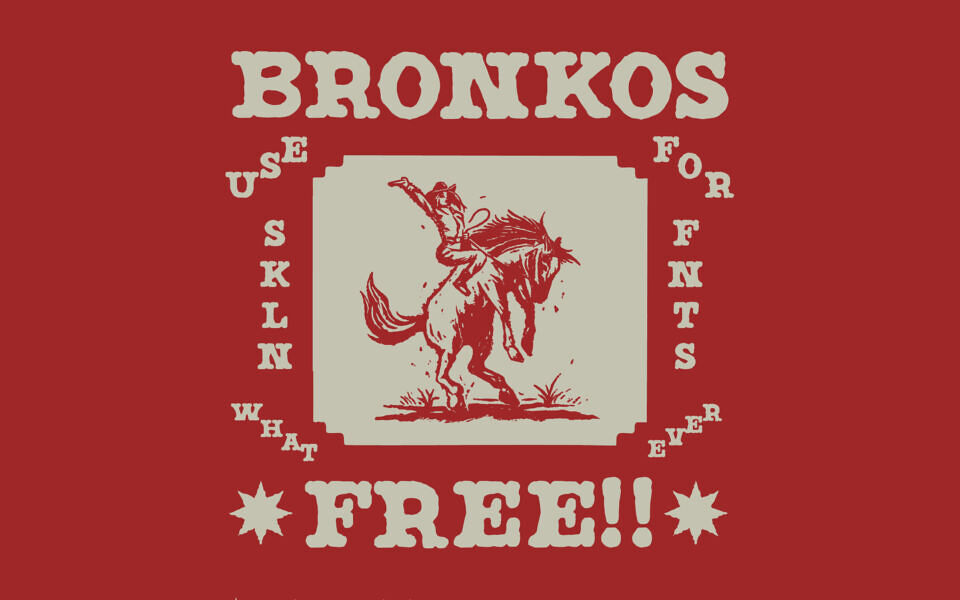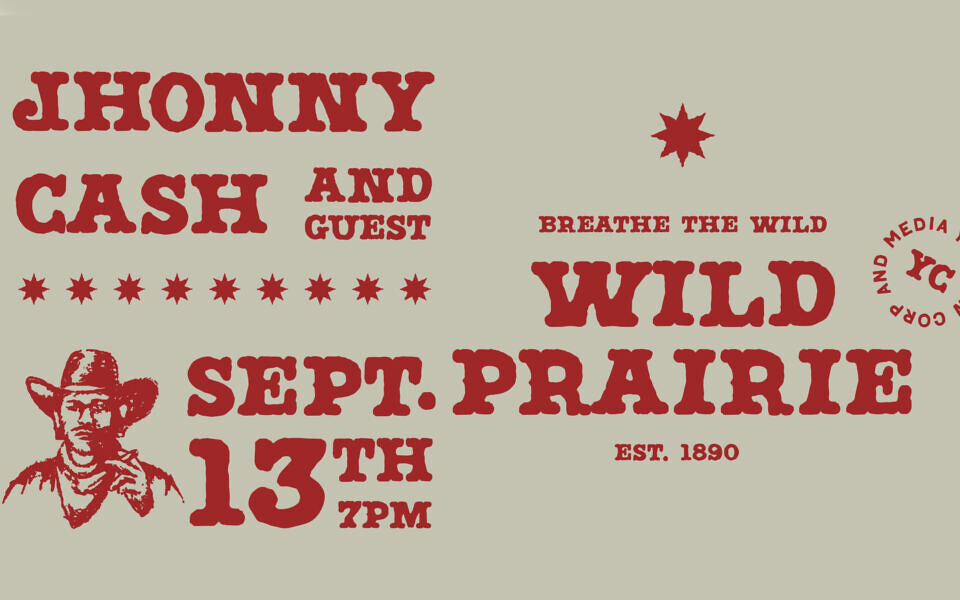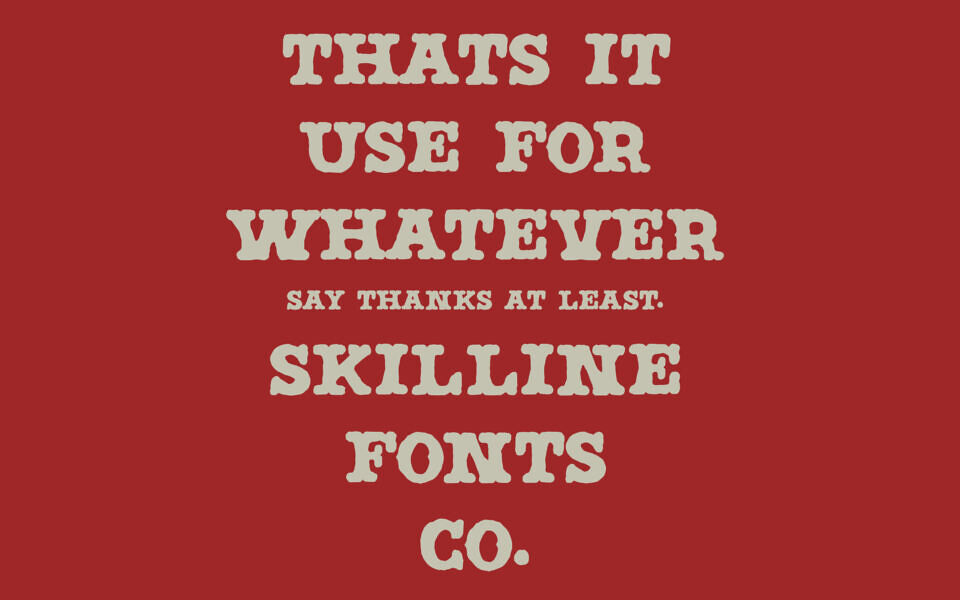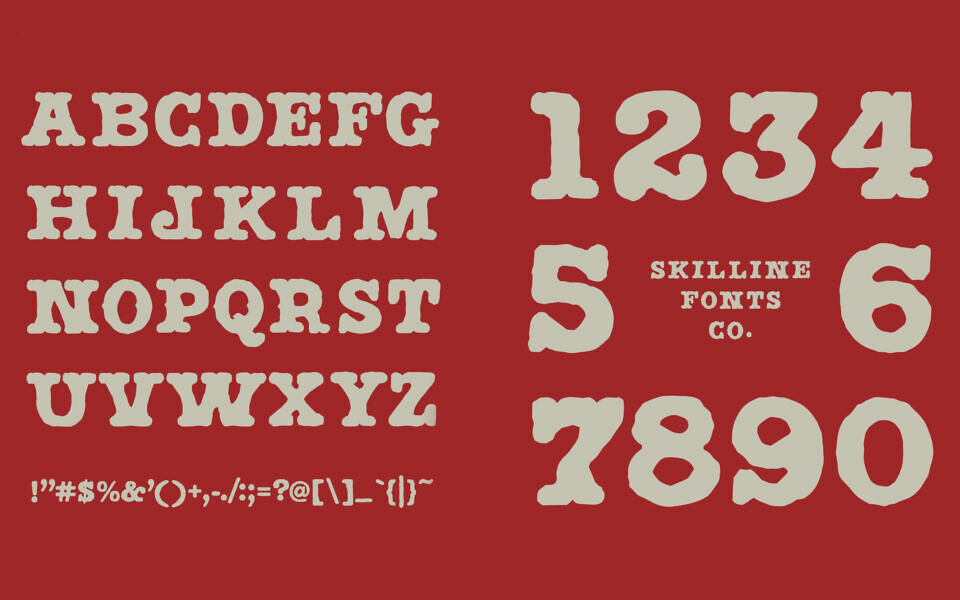
SFC Bronkos is a free, all-caps display font inspired by vintage cowboy lettering and old-west signage. With rugged edges and bold, hand-drawn strokes, this typeface delivers a rustic, adventurous character ideal for logos, posters, branding, packaging, and western-themed designs.
Its distinctive style evokes traditional American frontier aesthetics, making your headlines stand out with authentic, rugged charm.